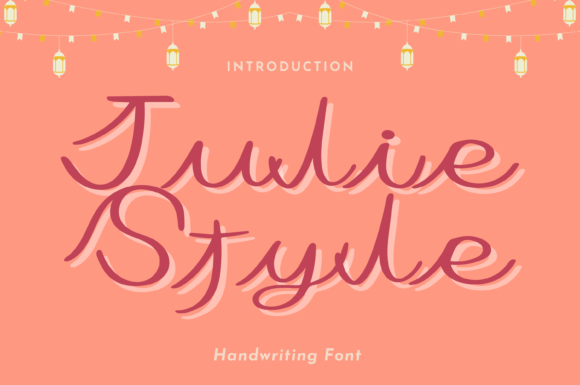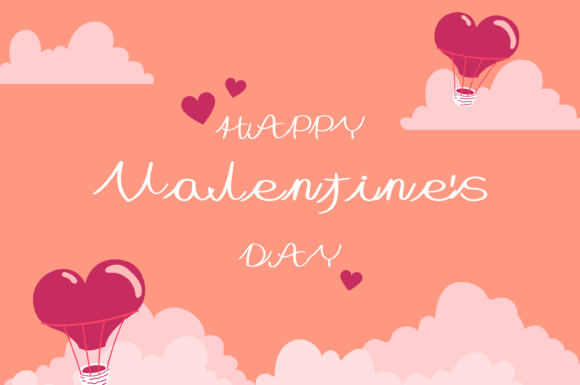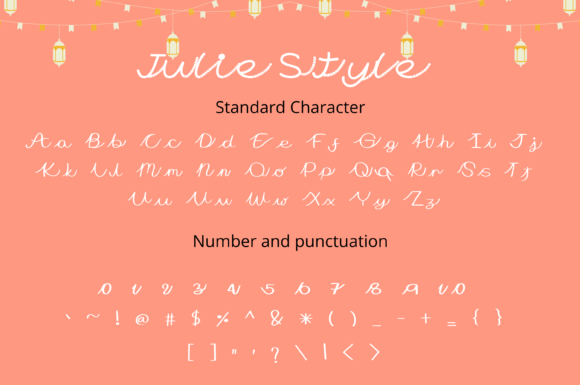
About Julie Style Font
Julie Style is a charming and playful handwritten font that adds a whimsical touch to a wide range of creative projects. With its paintbrush-inspired strokes and unique character design, Julie Style brings a sense of fun and creativity to your designs.
The font’s whimsical nature makes it a versatile choice for a variety of projects. Whether you’re working on vibrant and colorful designs, quirky illustrations, eye-catching posters, engaging social media graphics, or any other creative endeavor, Julie Style has the ability to instantly grab attention and make your designs stand out.
The paint brushed effect of Julie Style’s letterforms adds an organic and handmade feel to your work, evoking a sense of authenticity and artistic flair. Its playful and slightly imperfect strokes give your designs a sense of character and individuality, making them feel more personal and relatable to your audience.
Julie Style’s adaptability is one of its key strengths. It can seamlessly match different design themes, from cheerful and lighthearted to rustic and vintage-inspired. This versatility allows you to explore various design directions and experiment with different styles, all while maintaining a cohesive and visually appealing look.
Incorporating Julie Style into your creative projects is a surefire way to infuse them with a dose of charm and originality. Whether you’re designing for print or digital platforms, the font’s whimsical and paint brushed aesthetic adds a touch of uniqueness that captures the viewer’s attention and leaves a lasting impression.
So, let your imagination run wild and explore the endless possibilities that Julie Style offers. Add it to your creative toolkit and watch how it transforms your ideas into standout creations that are sure to leave a smile on the faces of your audience.